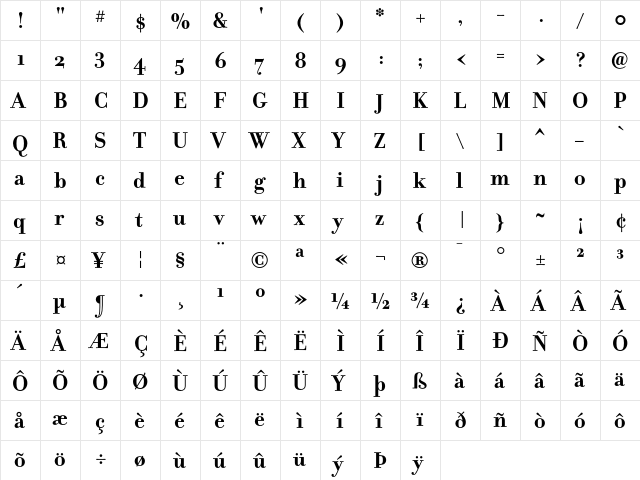
Filosofia Bold
Design Context for Filosofia Typeface
Filosofia offers clean, dependable letterforms without strong stylistic allegiance, making it a practical choice for designers who need flexibility. Its bold stroke weight gives it real presence on the page.
Pro Tip: Pair Filosofia with a font of contrasting weight or personality to build a more expressive typographic hierarchy.